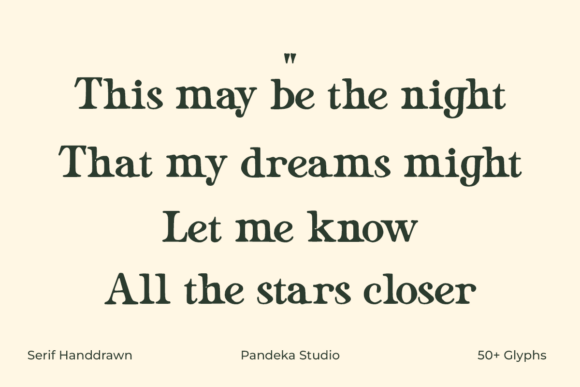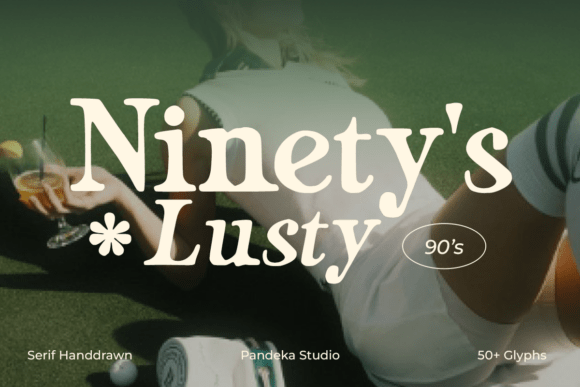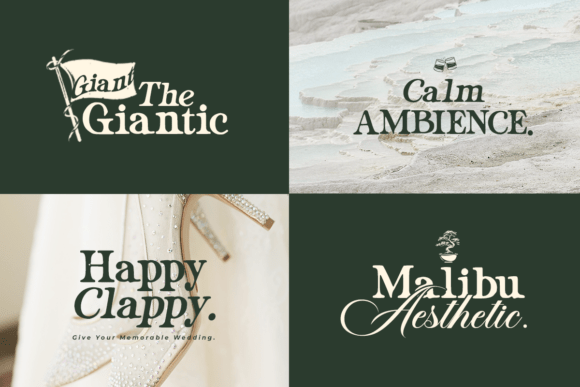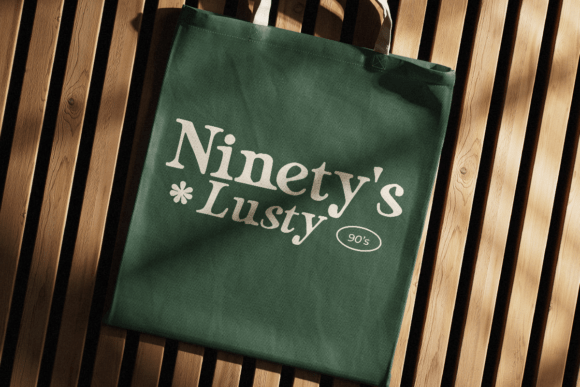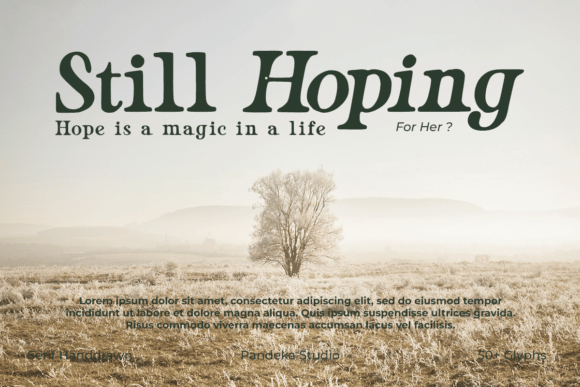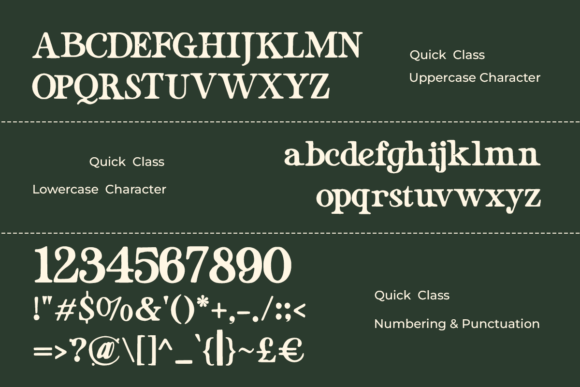
Introduction to Quicky Class Font
As designers, we’ve all been there – staring at a blank canvas, searching for the perfect font to bring our creative project to life. The search can be overwhelming, especially when you’re working on a high-quality design that requires a unique touch. But what if you stumbled upon a font that not only stood out but also added warmth and character to your design? Welcome to the world of Quicky Class Font, a hand-drawn serif font that’s about to become your new design BFF.
With its bold, nostalgic touch and vintage vibes, Quicky Class Font is the perfect addition to any creative project. Whether you’re designing for a coffee brand, eco-product, or heartfelt message, this font brings a timeless charm that’s hard to resist. And the best part? You can download it for free, making it an accessible design resource for designers of all levels.
So, what makes Quicky Class Font so special? For starters, it comes with a transparent background, making it easy to customize and pair with your favorite design elements. Plus, with over 50 unique glyphs, you’ll have endless possibilities to experiment and create something truly unique. In this article, we’ll dive deeper into the world of Quicky Class Font and explore its many features and benefits.
Key Features of Quicky Class Font
- High-quality, professional design suitable for creative projects and presentations.
- Features a transparent background, allowing for seamless integration into any design resource.
- Includes a range of characters, including uppercase and lowercase letters, numbers, and punctuation marks, making it a versatile design resource.
- Comes in a standard font size, with a resolution of 300 DPI, ensuring crisp and clear readability.
- Designed with a clean and modern aesthetic, making it perfect for a variety of creative projects, from digital art to print design.
Honest Review: Quicky Class Font
As a designer, I’m always on the lookout for high-quality design resources that can elevate my creative projects. Recently, I stumbled upon the Quicky Class Font, and I’m excited to share my honest review.
What works well: ✨ The font is highly versatile and can be used for a variety of creative projects, from logos and branding to posters and digital displays. The transparent background makes it easy to combine with other design elements. Additionally, the font is free to download, which is a definite plus.
- Highly versatile and suitable for various creative projects
- Transparent background for easy combination with other design elements
Limitations: ⚠️ While the Quicky Class Font is a solid design resource, I found it to be somewhat limited in terms of style and uniqueness. Additionally, the font may not be the best choice for projects that require a more sophisticated or elegant look.
Overall, I’d say the Quicky Class Font is a great addition to any designer’s toolkit. While it may not be perfect, it’s a reliable and versatile font that can help take your creative projects to the next level.
The Quicky Class Font is a high-quality, free download design resource ideal for any creative project. This versatile font offers a transparent background, making it perfect for overlaying text on images or using as a standalone design element.
Tips for Getting the Most Out of Quicky Class Font
To get the most out of the Quicky Class Font, try the following:
- Experiment with different font sizes and styles.
- Use the font in combination with other design elements for a cohesive look.
- Take advantage of the transparent background to create visually appealing overlays.
The Quicky Class Font is ideal for a variety of design projects, including:
- Business cards and brochures.
- Social media graphics and ads.
- Presentations and documents.
Does the Quicky Class Font have a transparent background?
Yes, the Quicky Class Font has a transparent background, making it ideal for use in design projects where a clear background is necessary. This feature also allows for seamless integration with other design elements and backgrounds.
Is the Quicky Class Font suitable for high-resolution printing?
Yes, the Quicky Class Font is designed to be high-quality and suitable for use in high-resolution printing applications. The font is carefully crafted to ensure crisp and clear rendering at various font sizes and resolutions.